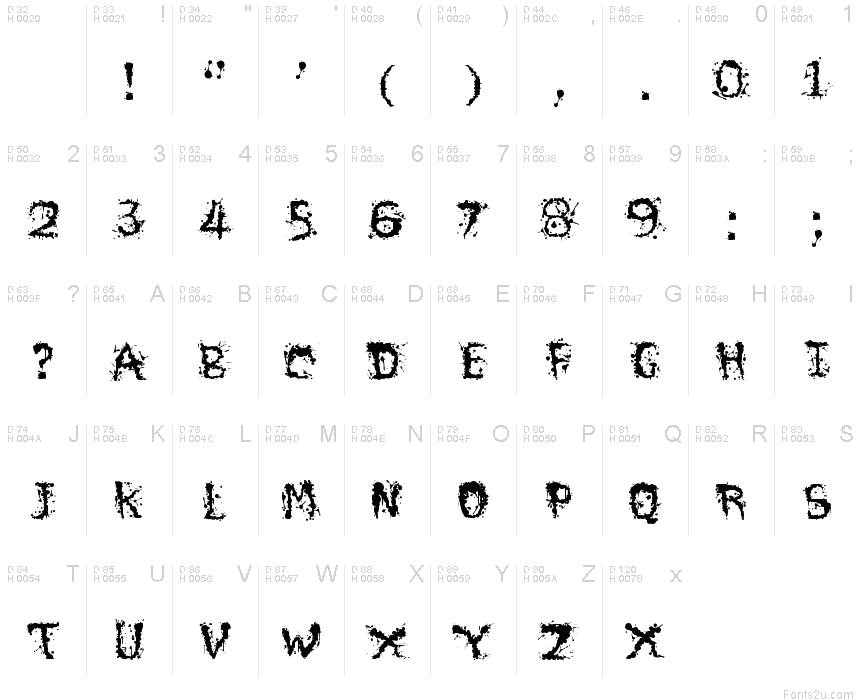
Gus Gus by Gus is a free decorative display font shaped by splattered ink and swollen, uneven letterforms. Dense blobs gather along the strokes, with stray droplets and sharp sprays breaking up the silhouettes. The result feels messy, physical, and deliberately unruly.
Street art and horror themes make it a convincing fit for music posters, game graphics, and Halloween packaging. The droplets can merge with painted textures and stains, turning the lettering into part of the artwork.